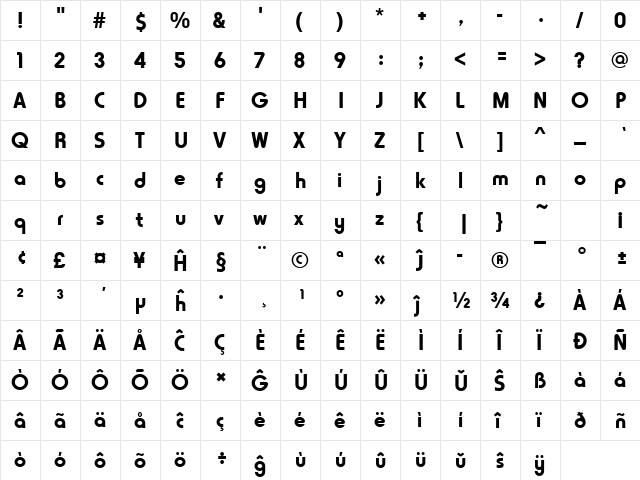
HoratioDBol Eo Regular
Design Context for HoratioDBol Eo Typeface
HoratioDBol Eo takes a measured approach to typography — its balanced proportions and neutral character make it a reliable workhorse for both digital and print work.